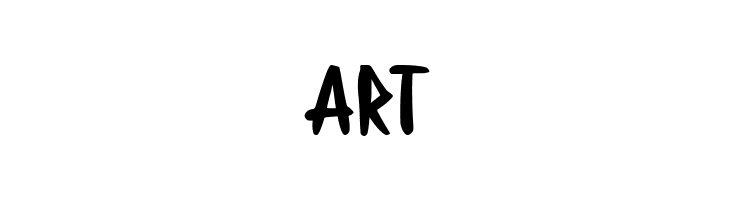
A playful, decorative font with characters enclosed in flag shapes, perfect for festive designs.
A playful, bold font with rounded, thick strokes and a whimsical touch.
A bold, playful handwritten font with thick strokes and rounded edges.
A bold, playful font with rounded, low-contrast characters.
A graceful script font with flowing curves and high contrast strokes.
A flowing, cursive script font with intricate loops and swashes, perfect for elegant designs.
A playful, handwritten font with tall, narrow letters and a casual elegance.
A bold, expressive handwritten font with fluid strokes and a modern vibe.
A bold, hand-drawn font with dynamic and edgy characteristics.
A bold, cursive script font with a dynamic and expressive style.